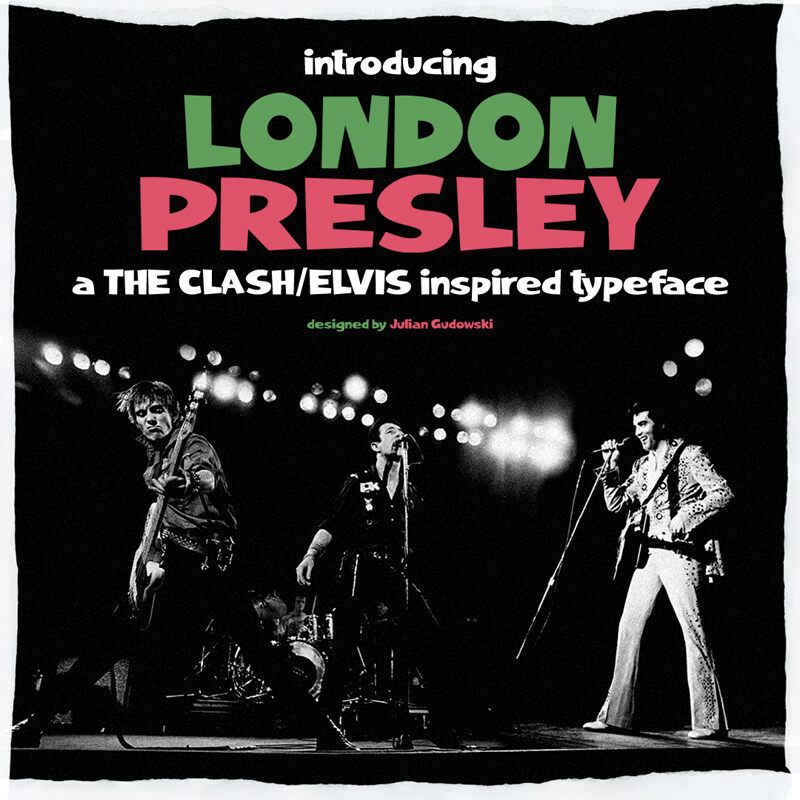
LONDON PRESLEY
LONDON PRESLEY is a bold, expanded display font that pays homage to two iconic musical legends - The Clash and Elvis Presley. Inspired by the gritty, punk-infused cover of 'London Calling,' this typeface exudes a raw, edgy energy, with its cartoon-inspired aesthetic and exaggerated letterforms.
The font's expanded width adds a sense of visual impact, making it an ideal choice for headlines, logos, and other high-visibility design elements. The bold weight further reinforces this font's commanding presence, ensuring it stands out in any composition.
Whether you're crafting a vintage-inspired music poster, designing a rebellious brand identity, or simply seeking a visually striking typographic element, LONDON PRESLEY offers a unique and memorable solution. Its versatility and distinctive character make it a must-have addition to any designer's toolkit.